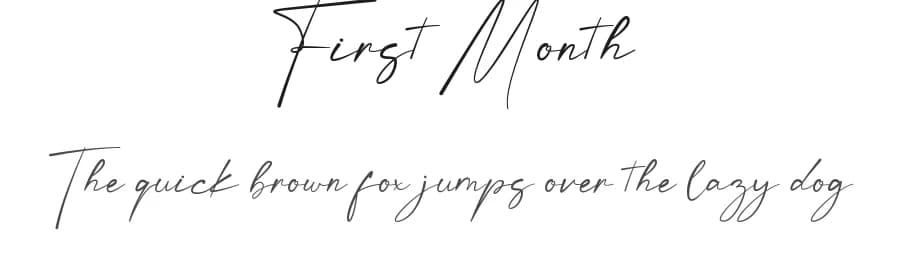
About First Month Font
First Month Specifications
First Month Font is a script font that shines as a display or heading face. Pair it with a clean sans-serif or serif font for body text β the contrast creates a clear hierarchy while the two styles stay balanced and easy to read.
First Month Font